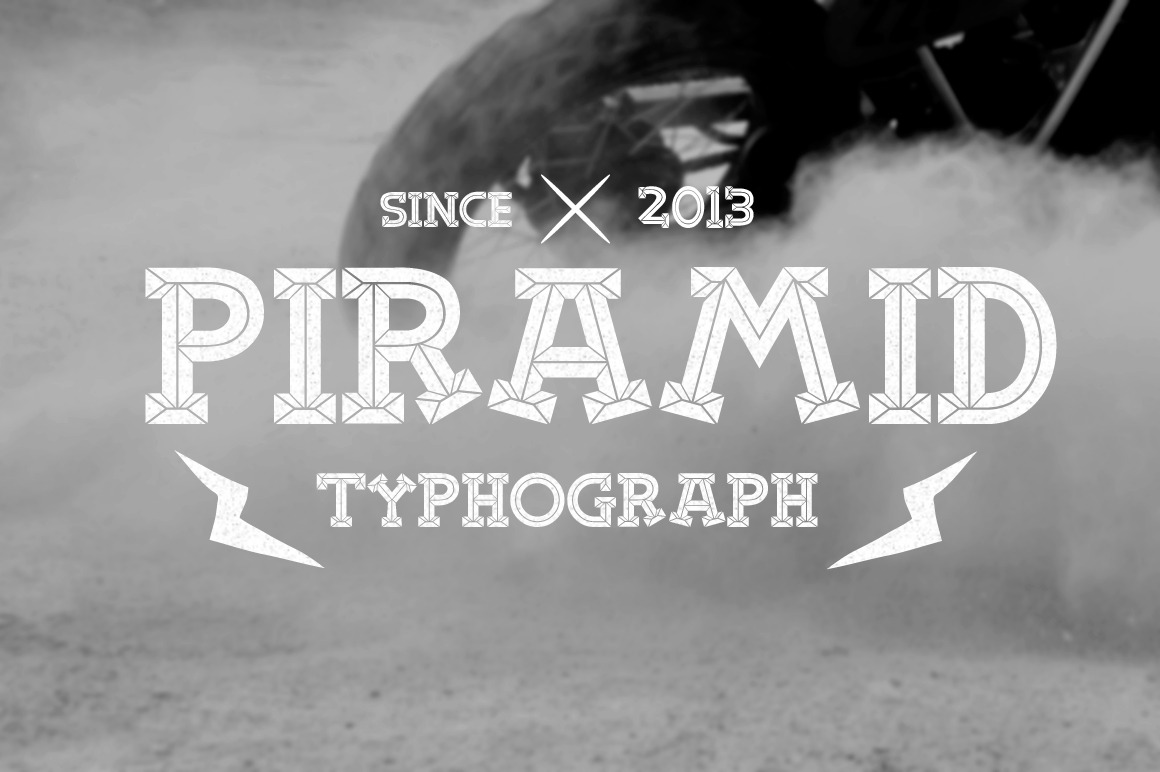
Piramid Font
Piramid Font is suitable for use make design using style of racing , This font is also used a great vintage style used in your design that has a vintage concept